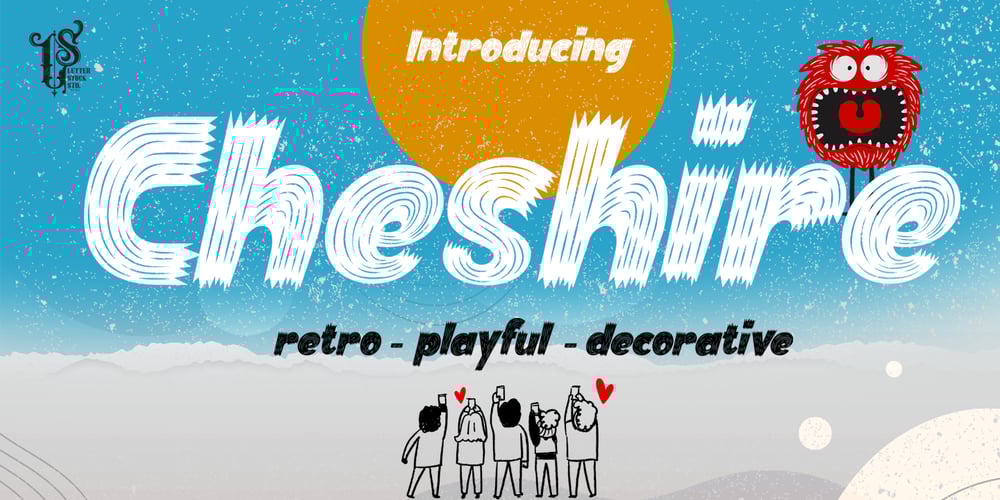
Cheshire Font Family was designed by Studio LetterStock and published by LetterStock. Cheshire contains 1 styles and family package options. CheshireThis pair was inspired by poster design that i saw on street, It was crafted by hand specially to add natural handmade feeling in its brand identity than i make it clean with pentool.We improve with handmade to make a retro playful feel, this font is bold so it can look strong if you use it for branding or even title for your poster design with retro playful decorative style.Opentype featuresCheshire font has 175 character set included Cheshire Font is very good looking in retro retro playful decorative logotype, labels, t-shirt prints, product packaging, invitations, advertising and others.If you looking for a retro playful font, this item is a great choice to make your design authentic and unique.This fonts works with folowing languages:Afrikaans, Albanian, Asu, Basque, Bemba, Bena, Chiga, Cornish, Danish, English, Estonian, Filipino, Finnish, French, Friulian, Galician, German, Gusii, Indonesian, Irish, Italian, Kabuverdianu, Kalenjin, Kinyarwanda, Low German, Luo, Luxembourgish, Luyia, Machame, Makhuwa-Meetto, Makonde, Malagasy, Malay, Manx, Morisyen, North Ndebele, Norwegian Bokmål, Norwegian Nynorsk, Nyankole, Oromo, Portuguese, Romansh, Rombo, Rundi, Rwa, Samburu, Sango, Sangu, Scottish Gaelic, Sena, Shambala, Shona, Soga, Somali, Spanish, Swahili, Swedish, Swiss German, Taita, Teso, Vunjo, ZuluThank you for using this font.LS